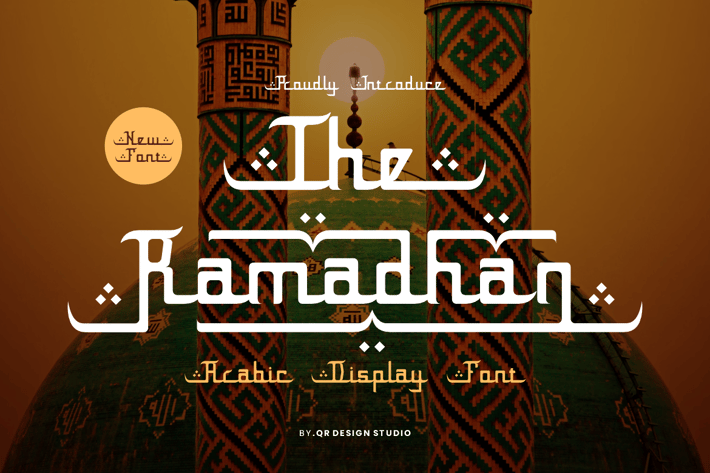
The Ramadhan - Arabic Font
The Ramadhan - Arabic Font is a decorative and authentic display font.
The font is suitable for any branding project like poster, logo, ramadhan, and many more.